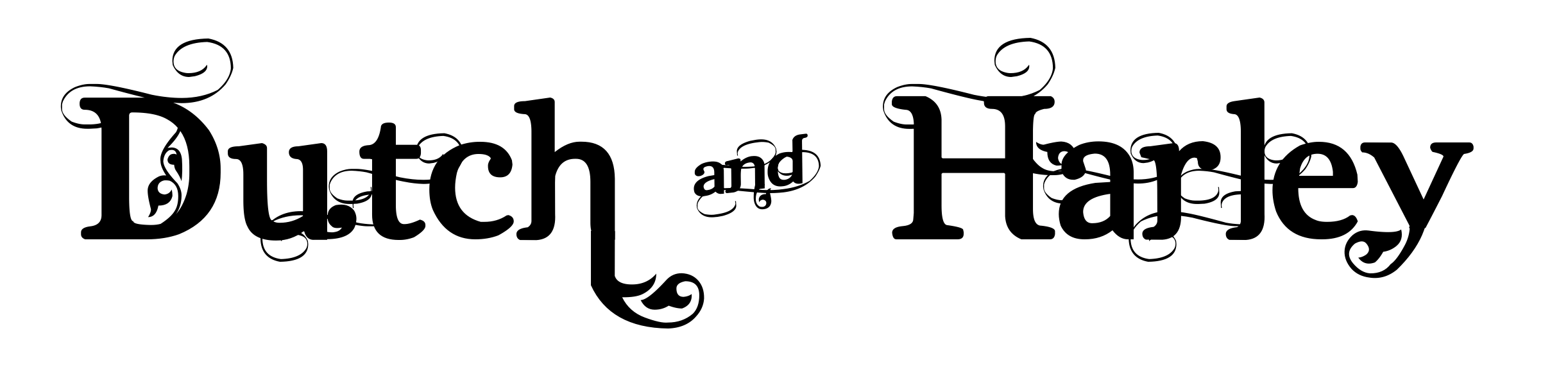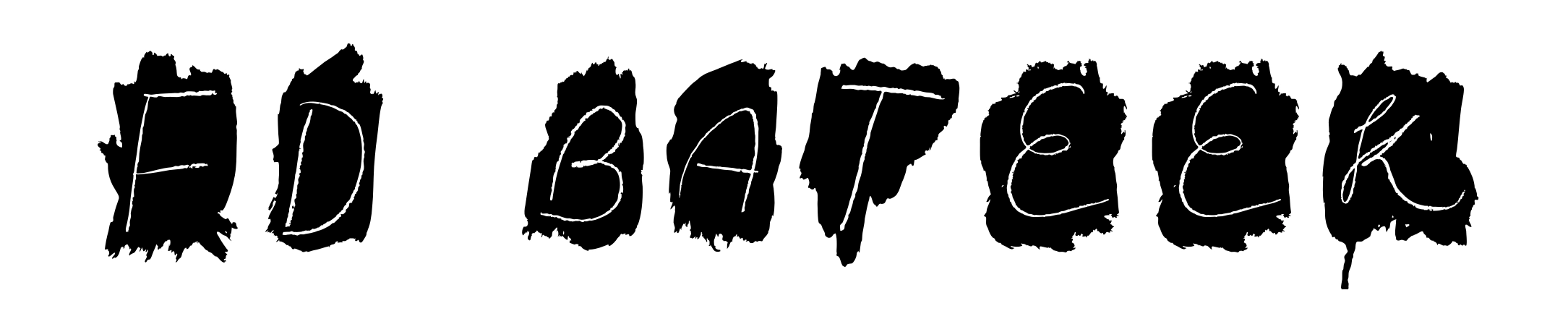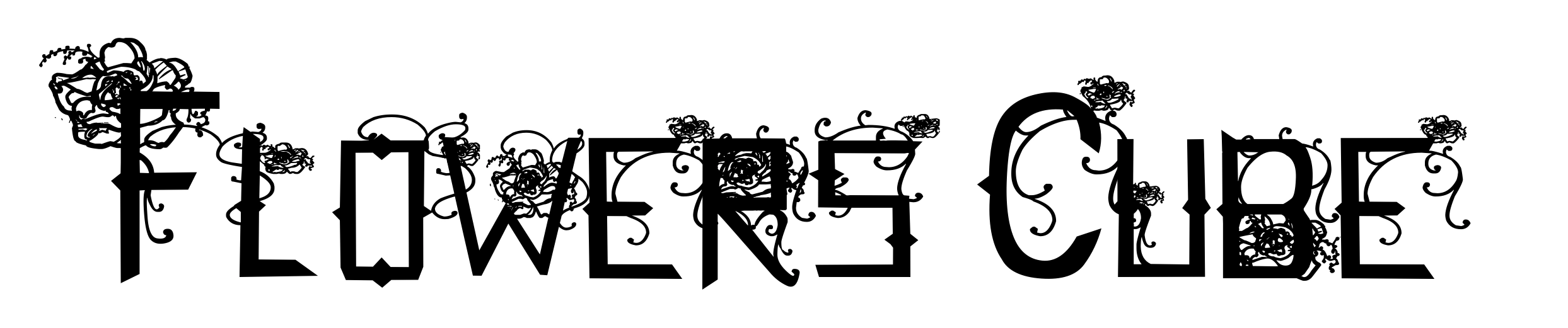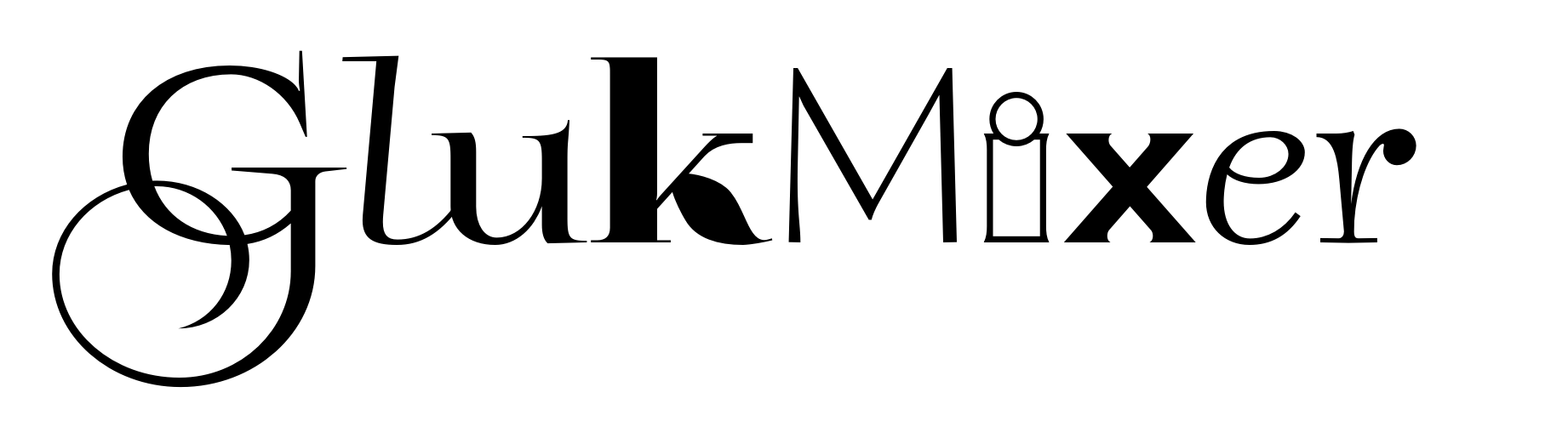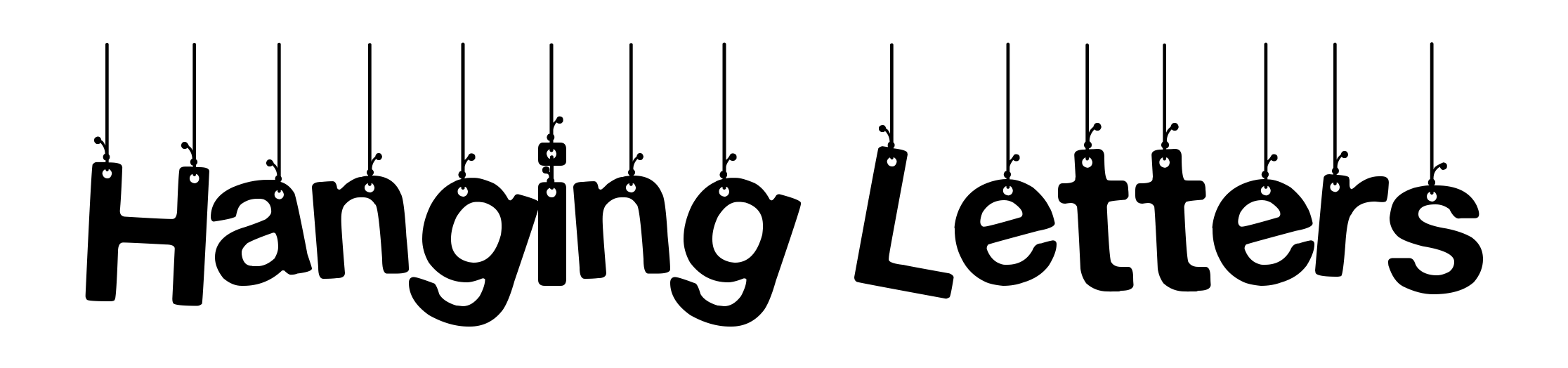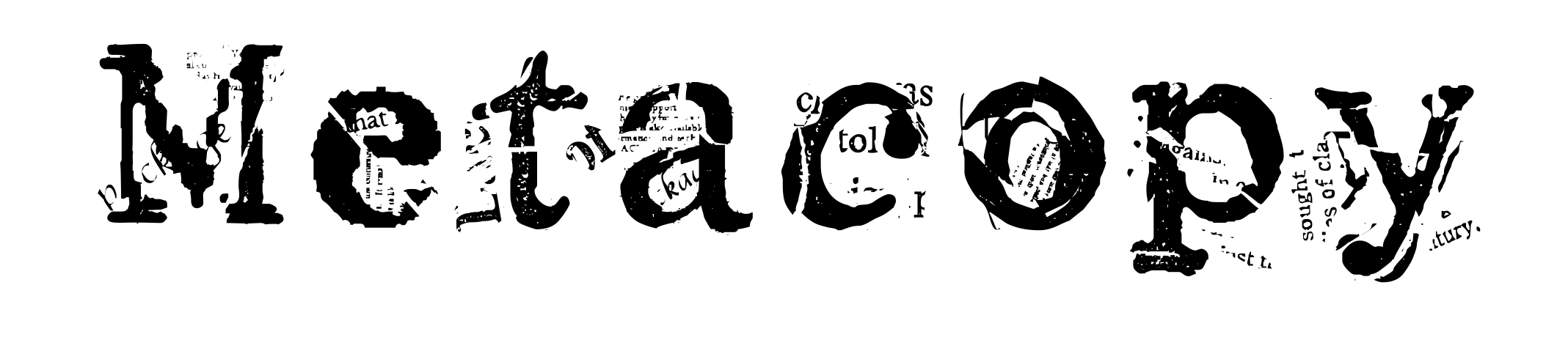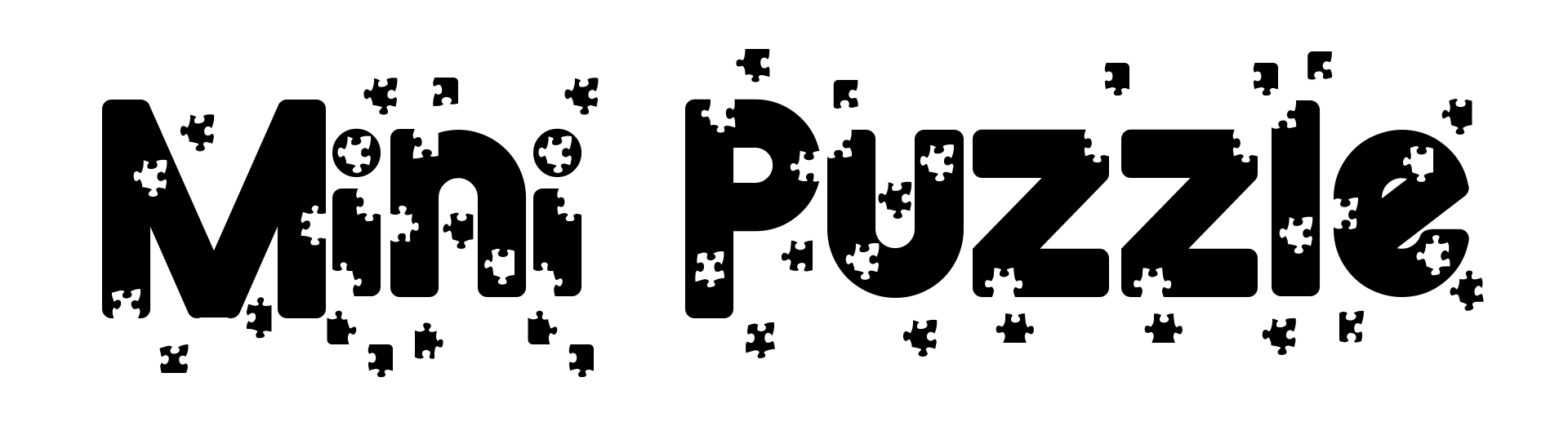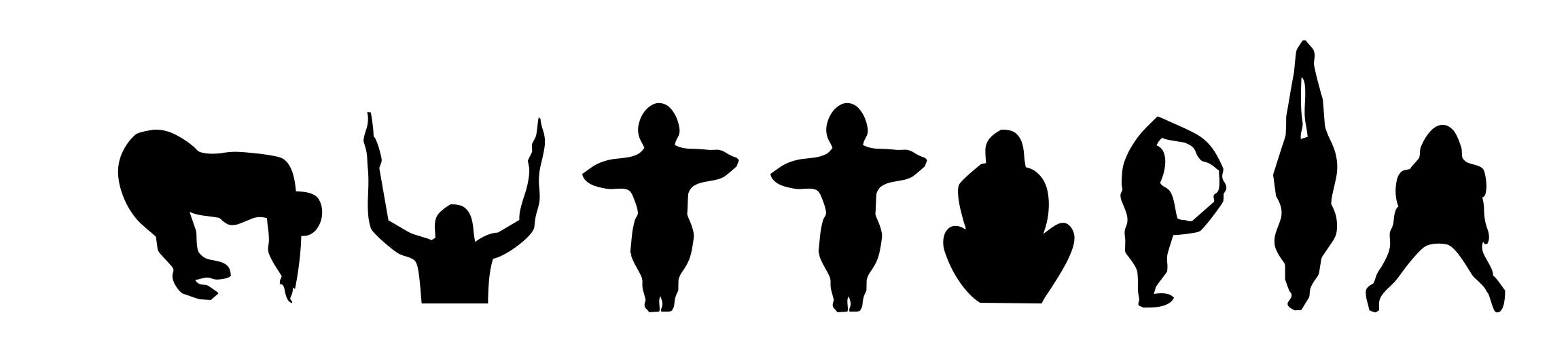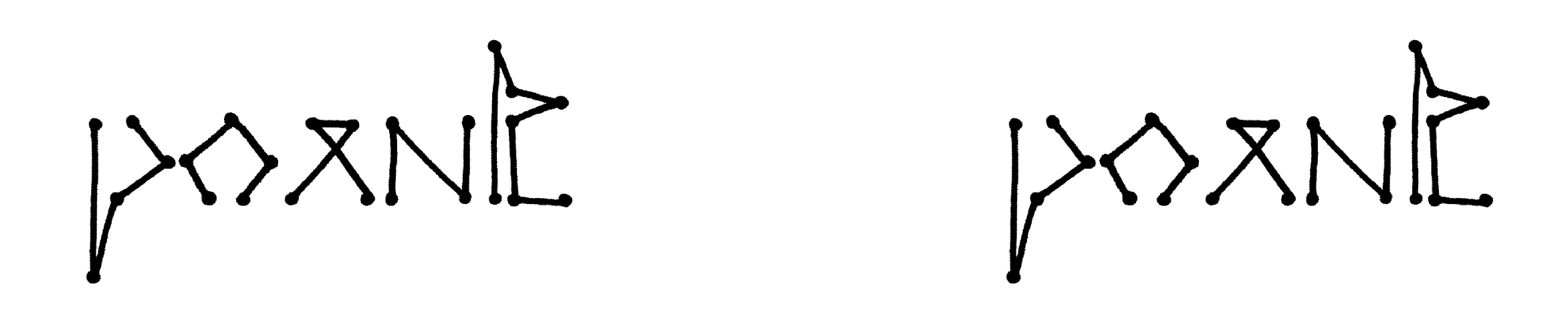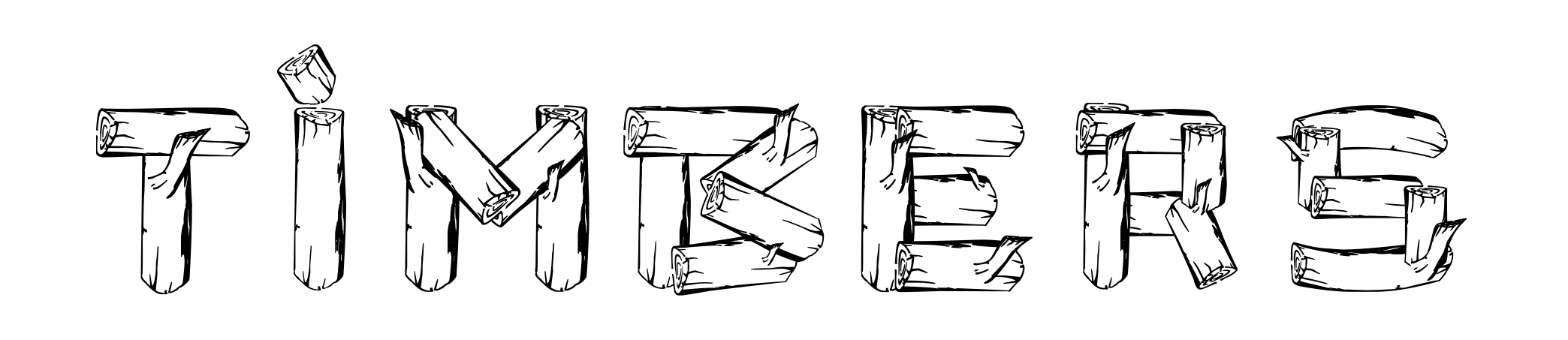
Decorative Fonts Page 3
Decorative Fonts Page 3 is a decorative display typeface. Browse the character map below and see how it looks in the preview image.